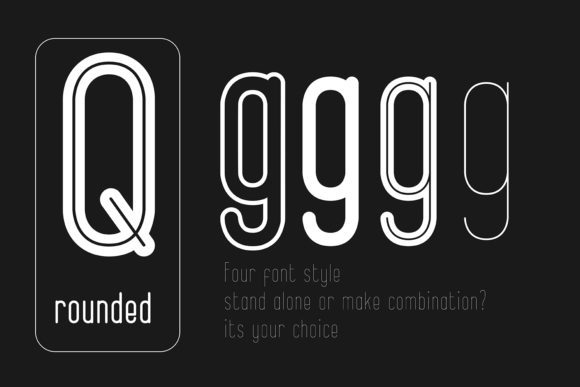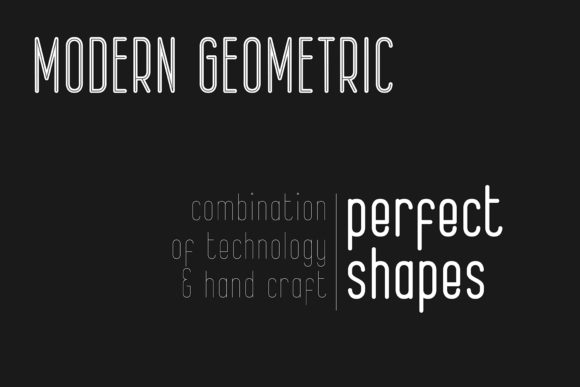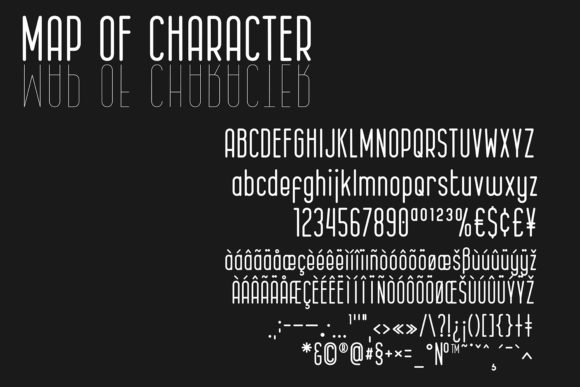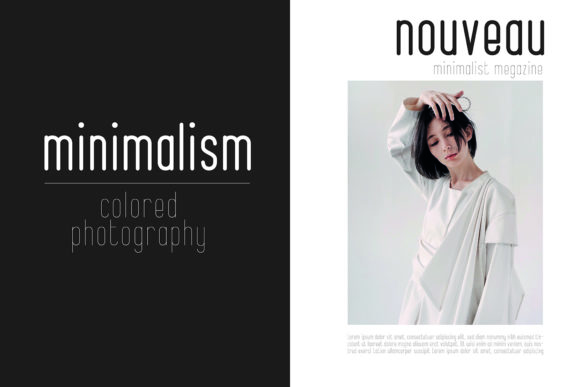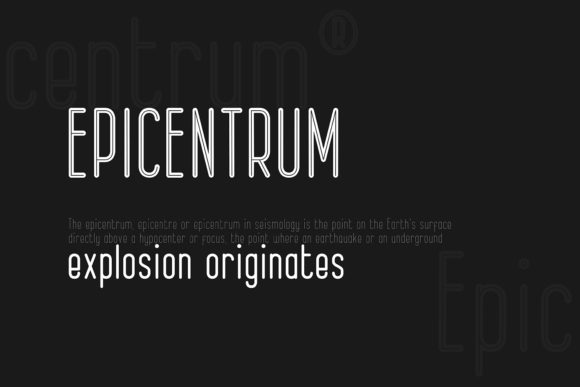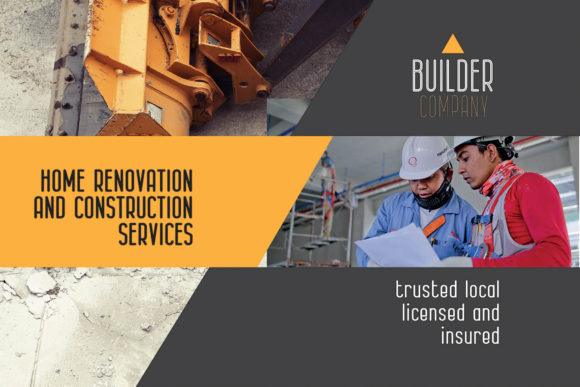
Epicentrum Font: A Modern Sans-Serif for Designers and Crafters
In the world of typography, fonts play a crucial role in conveying messages and expressing creativity. For designers and crafters, finding the right font can make all the difference in their projects. One font that has gained attention in recent times is Epicentrum, a universal sans-serif font with a minimalist style that is perfect for a wide range of applications.
What is Epicentrum Font?
Epicentrum is a modern sans-serif font designed with a minimal style of strokes, closed aperture, and geometric shapes. Its clean and simple design makes it an excellent choice for large arrays of text, as well as for display purposes. The font comes in four rounded styles, which add a touch of softness and elegance to any design.
Key Features of Epicentrum Font
- Minimalist style: Epicentrum’s design is characterized by minimal strokes, giving it a clean and simple look.
- Closed aperture: The font’s closed aperture ensures that the letters are well-spaced and easy to read.
- Geometric shapes: The use of geometric shapes gives Epicentrum a modern and sleek appearance.
- Four rounded styles: The font comes in four rounded styles, perfect for adding a touch of elegance to any design.
- Individually developed glyphs: Each glyph has been carefully designed, making it suitable for use as a display font.
Uses of Epicentrum Font
Epicentrum’s versatility makes it suitable for a wide range of applications, including:
- Digital and print design: The font’s clean design makes it perfect for use in digital and print materials, such as brochures, posters, and business cards.
- Web design: Epicentrum’s simple and geometric design makes it an excellent choice for web design, particularly for large arrays of text.
- Branding and advertising: The font’s modern and sleek appearance makes it suitable for use in branding and advertising materials.
- Crafting and DIY projects: Epicentrum’s elegant design makes it perfect for use in crafting and DIY projects, such as handmade cards and invitations.
Benefits of Using Epicentrum Font
Using Epicentrum font offers several benefits, including:
- Improved readability: The font’s clean design and closed aperture ensure that text is easy to read.
- Enhanced aesthetics: Epicentrum’s modern and sleek design adds a touch of elegance to any design.
- Versatility: The font’s versatility makes it suitable for a wide range of applications.
- Unique design: Epicentrum’s individually developed glyphs make it a unique and distinctive font.
Epicentrum font is a modern sans-serif font that offers a unique combination of minimalist style, geometric shapes, and elegant design. Its versatility and range of applications make it an excellent choice for designers and crafters. Whether you’re looking for a font for digital or print design, web design, branding, or crafting, Epicentrum is definitely worth considering.